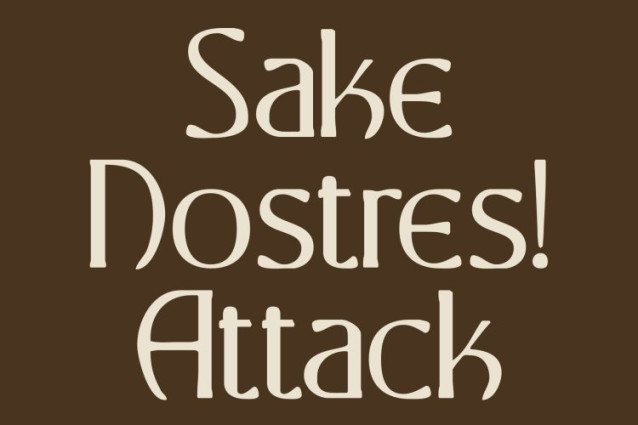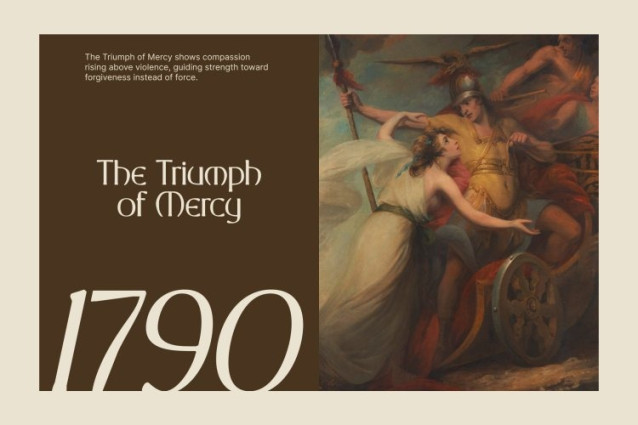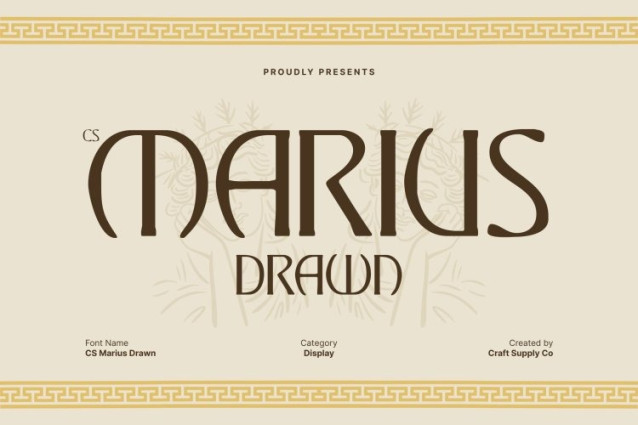
CS Marius Drawn Font
CS Marius Drawn Font This is a modern display serif font inspired by the grandeur of Greek-style lettering. It blends bold, authoritative forms with classical elegance, refined through a clean, contemporary approach. The drawn effect introduces subtle handcrafted nuances, adding warmth and artistic character to its otherwise majestic and structured appearance.
Architectural Serifs with Proportional Balance
Its strong, architectural serifs echo the solidity and harmony of ancient Greek architecture, evoking stability, prestige, and sophistication. Each letterform is carefully proportioned to balance strength and grace, ensuring visual harmony while delivering a commanding presence ideal for display typography.
Perfect for Classical Luxury Branding
This font excels in high-end branding, editorial titles, luxury logos, and premium packaging. Its fusion of classical influence and modern execution allows it to communicate timeless luxury with a fresh, stylish voice. The drawn texture softens its authority, adding depth and personality to refined design concepts.
Versatility with a Statement
From editorial headlines and cultural publications to sophisticated identity systems, this font adapts effortlessly across applications. Its clarity, balance, and expressive character ensure readability while leaving a strong, memorable impression rooted in heritage, elegance, and modern craftsmanship.